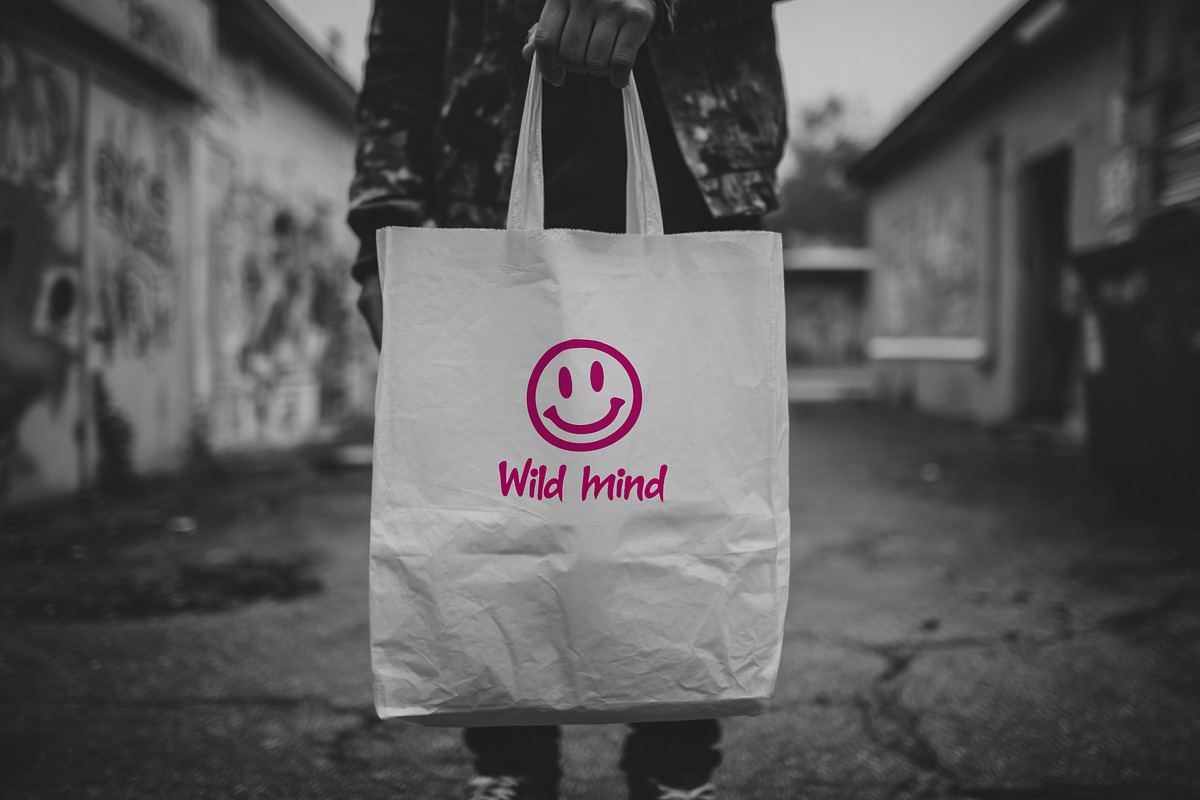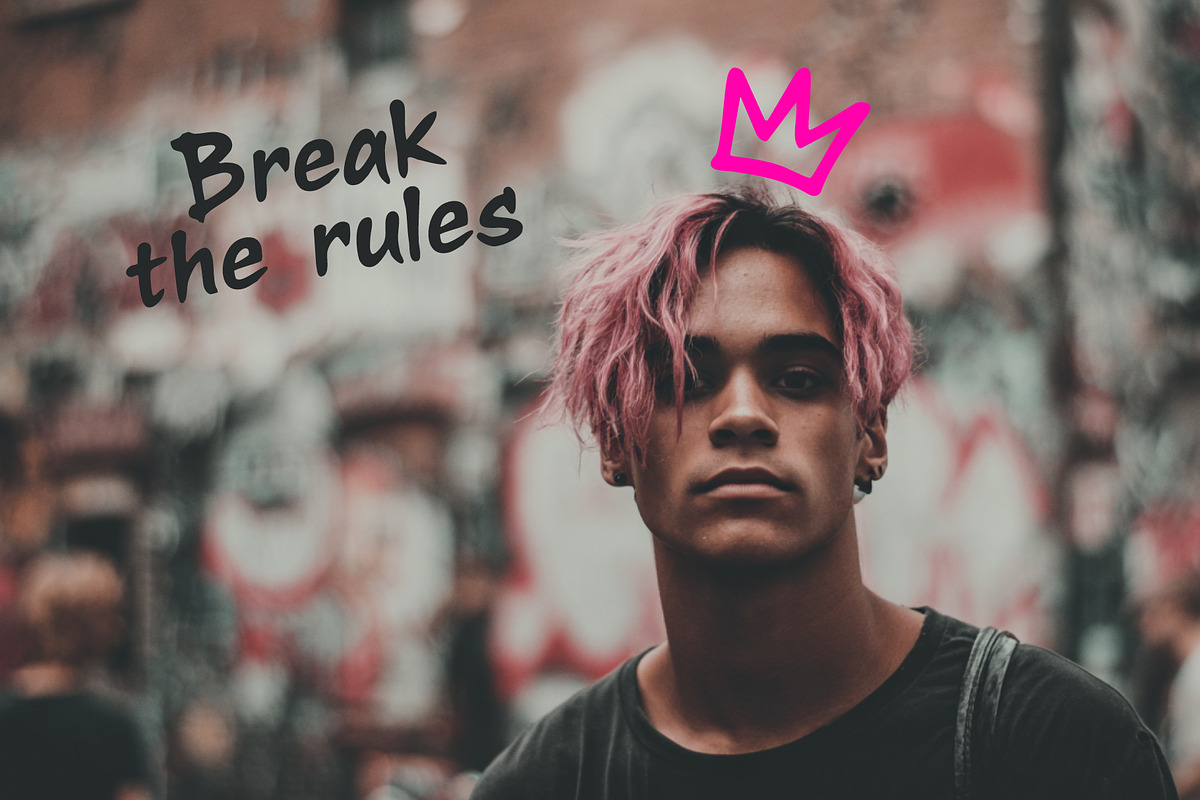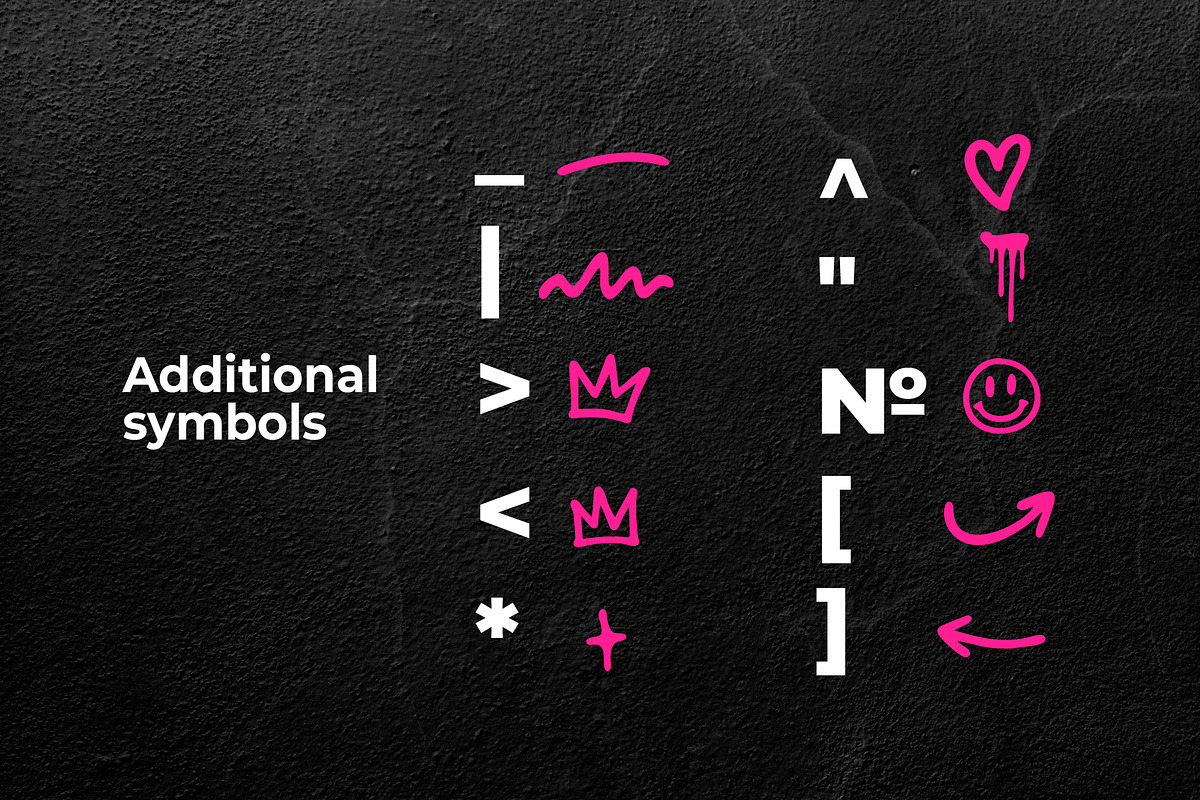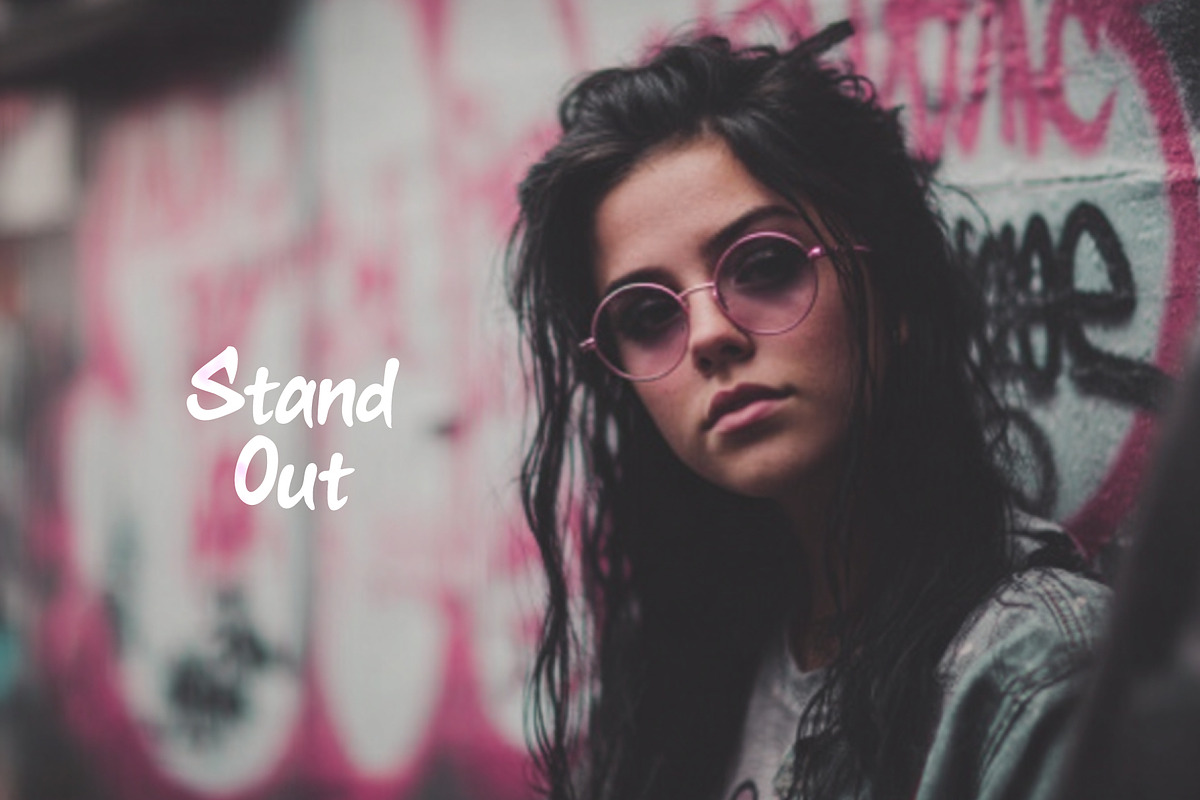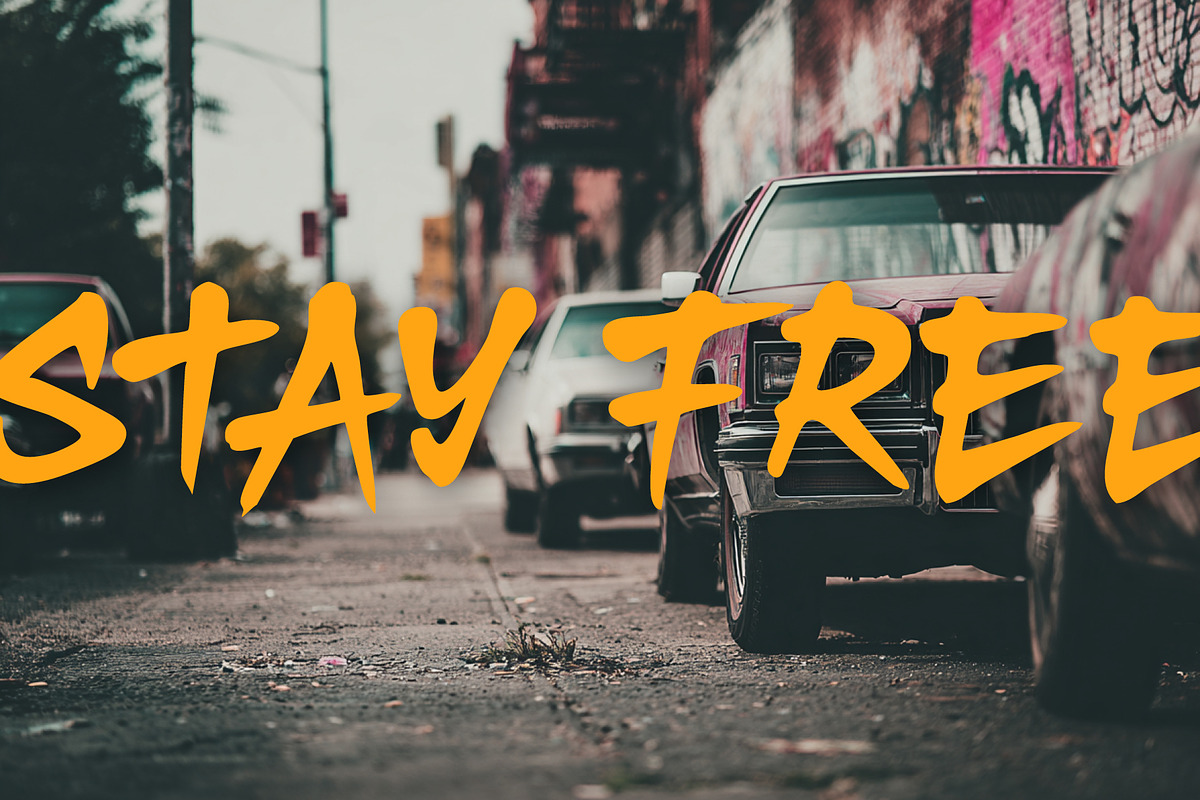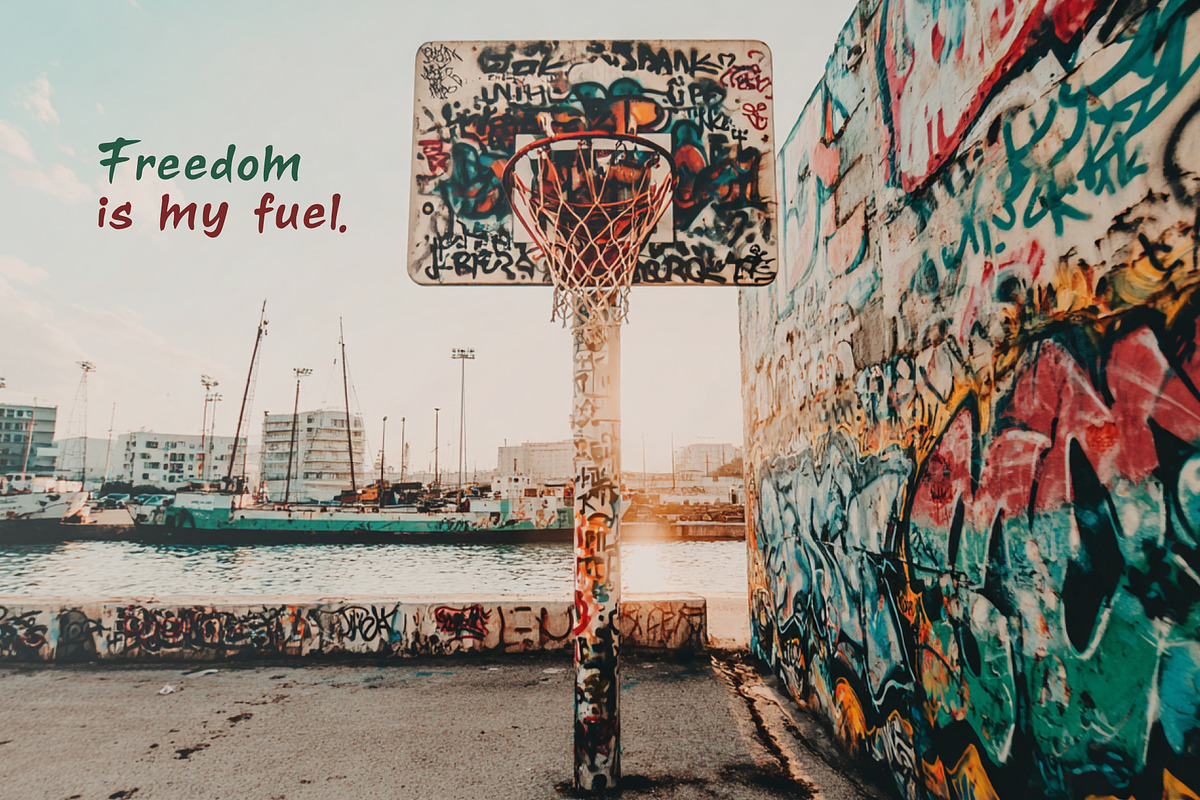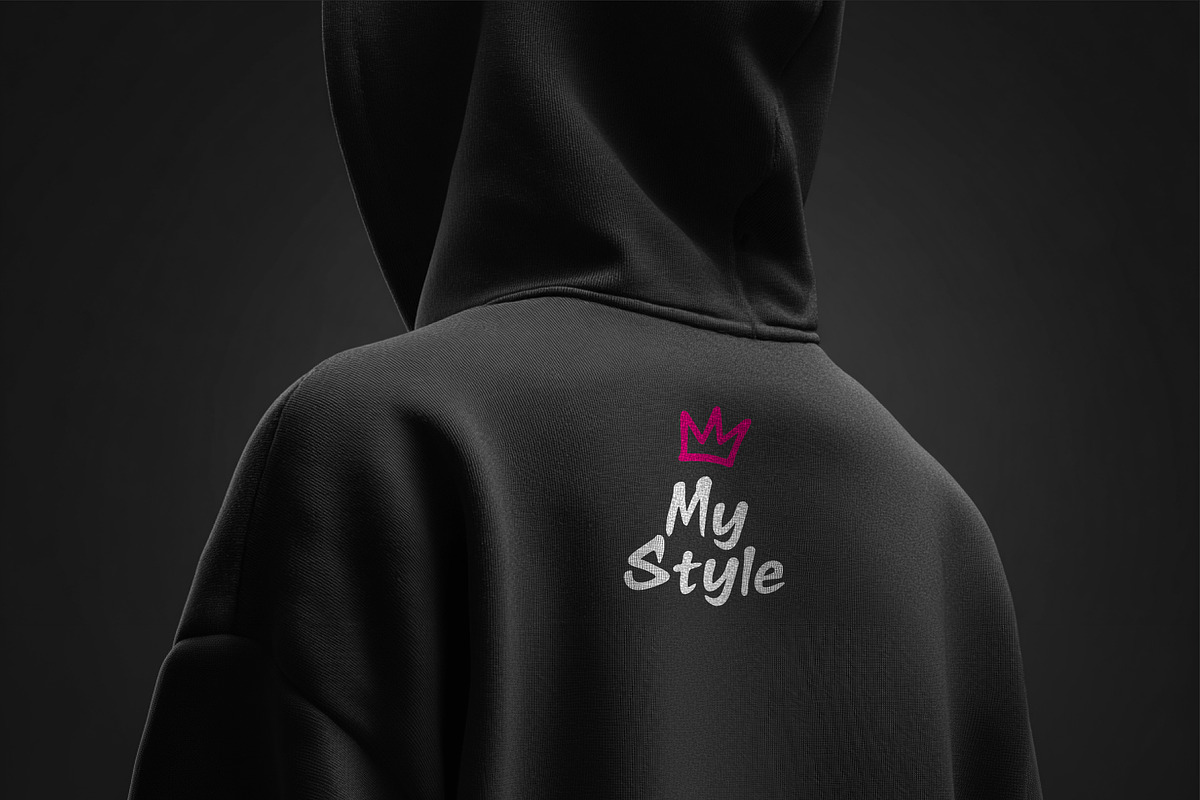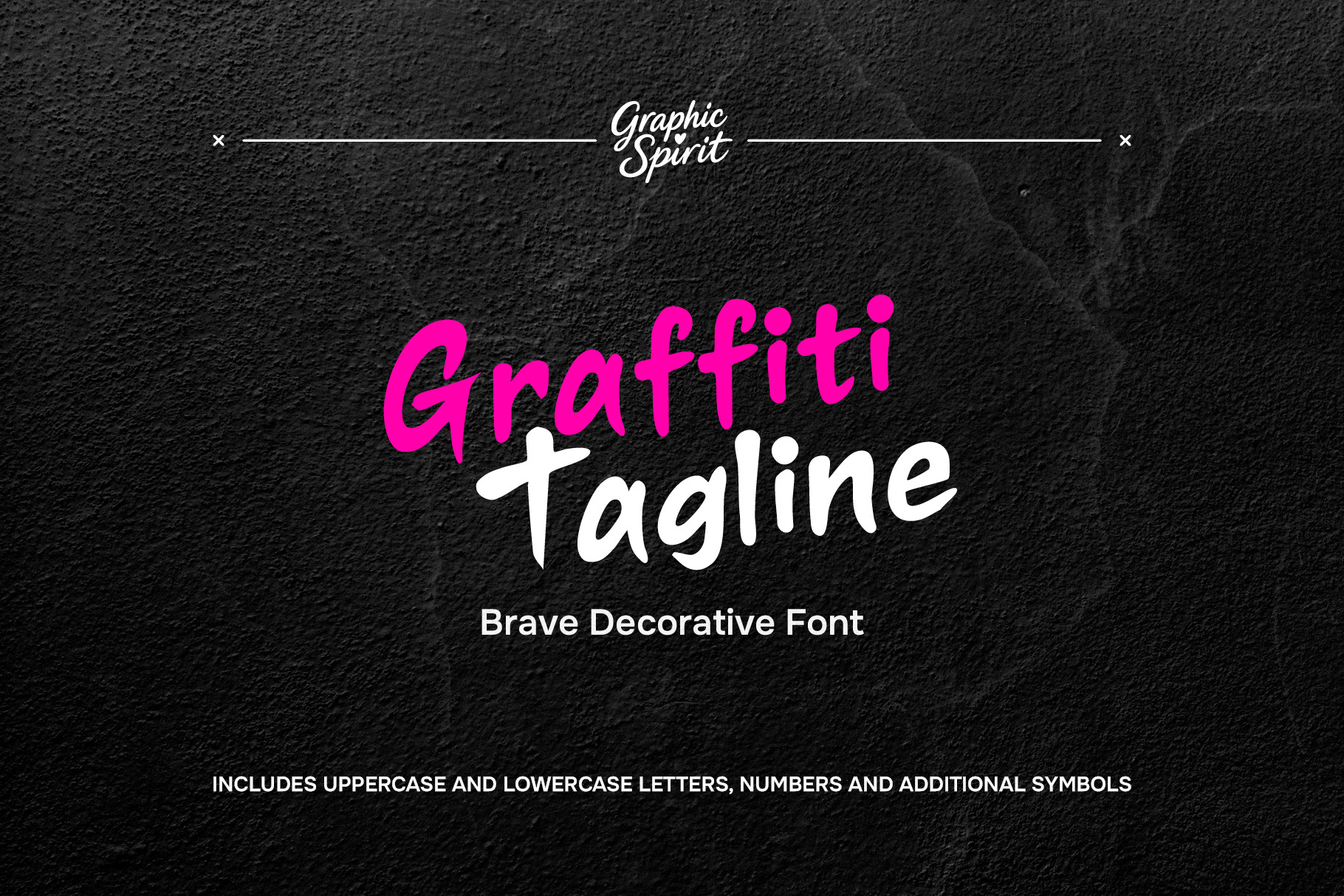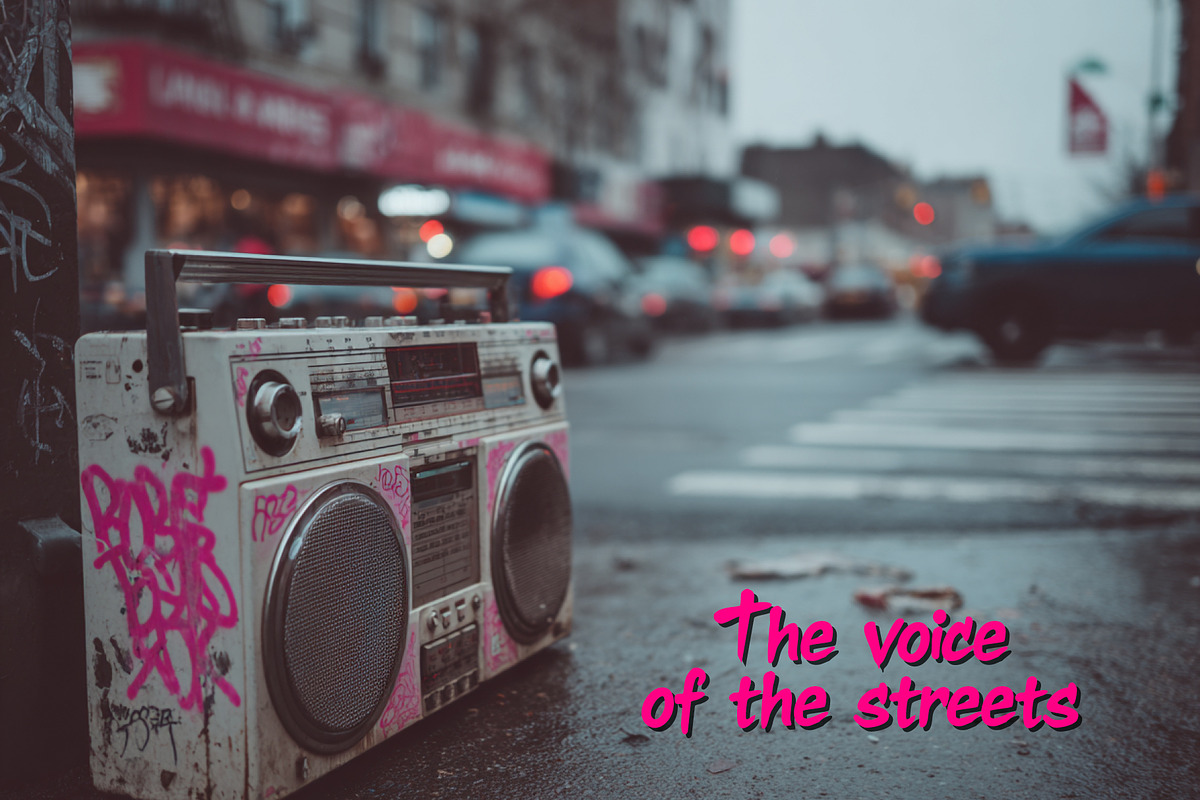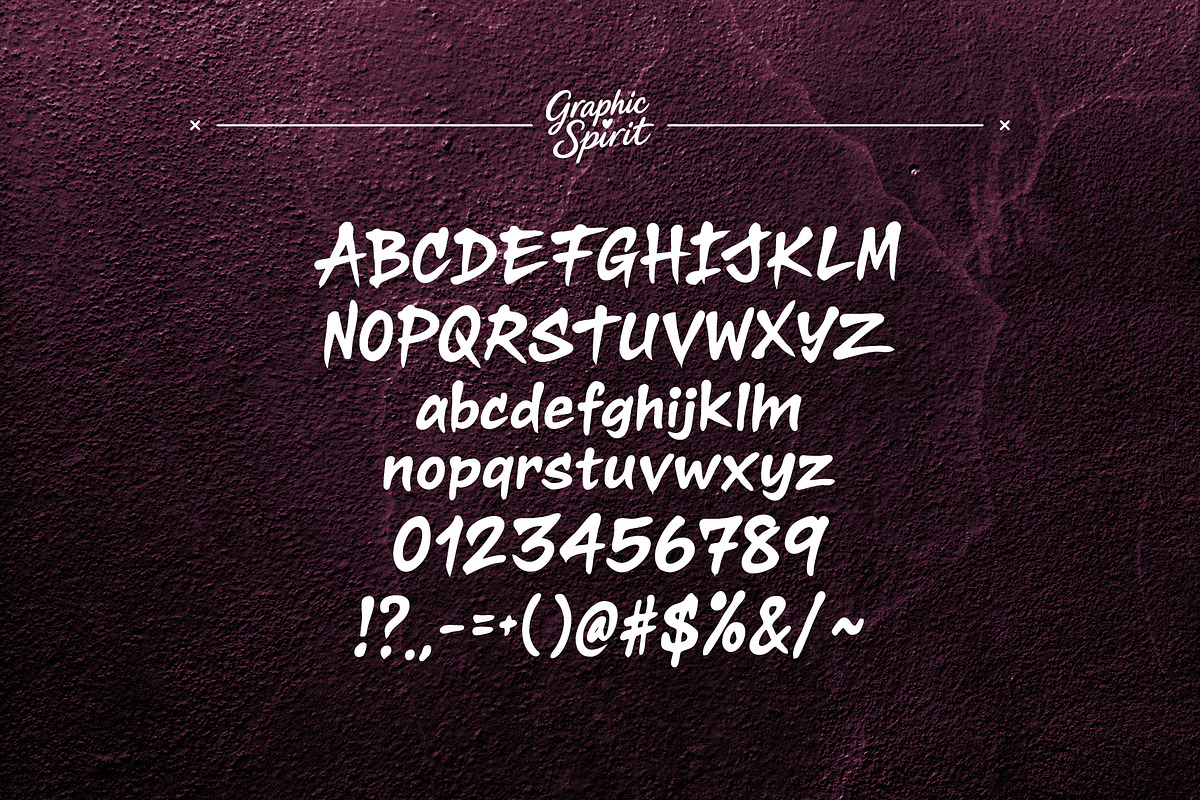
Graffiti Tagline Brave Font
🖌️ Unleash your inner urban artist with the Graffiti Tagline Brave Decorative Font! This bold, high-energy typeface captures the raw spirit of street art, featuring dynamic edges and a confident, hand-drawn flow. Perfect for making a powerful statement, it’s ideal for crafting eye-catching logos, social media graphics, poster designs, and merchandise that demands attention.